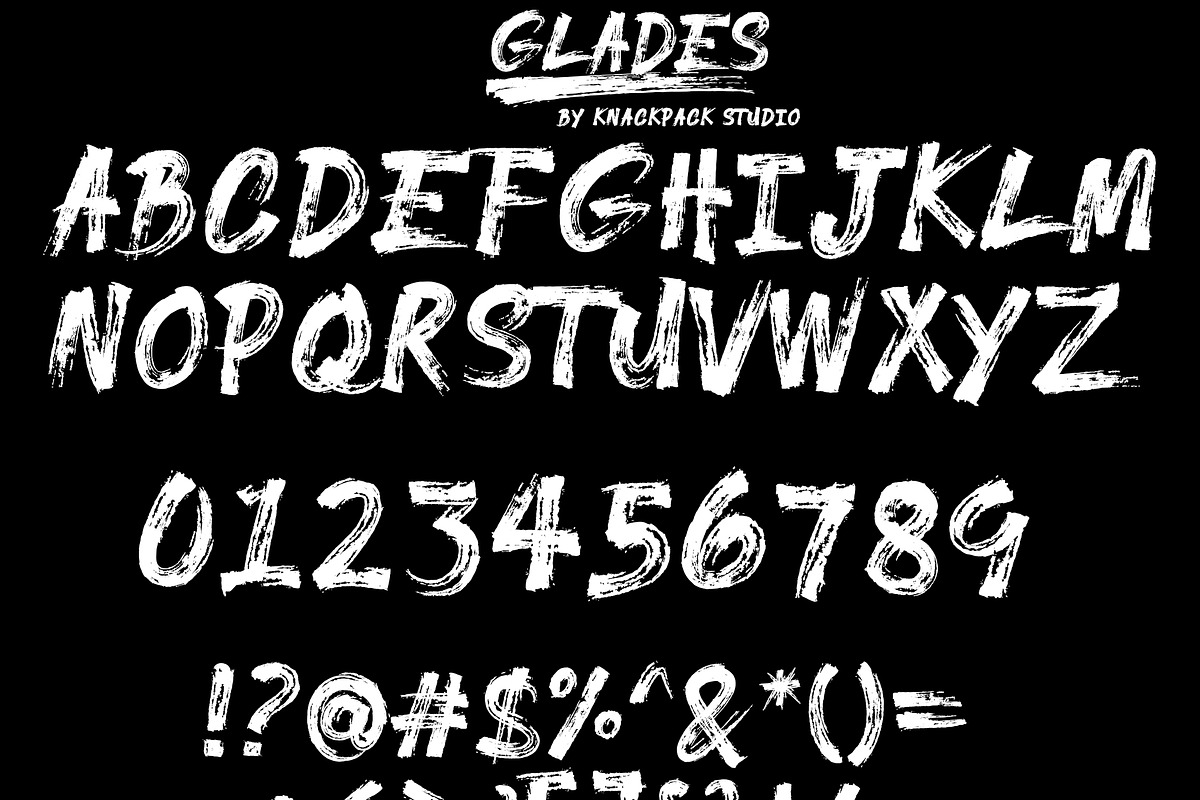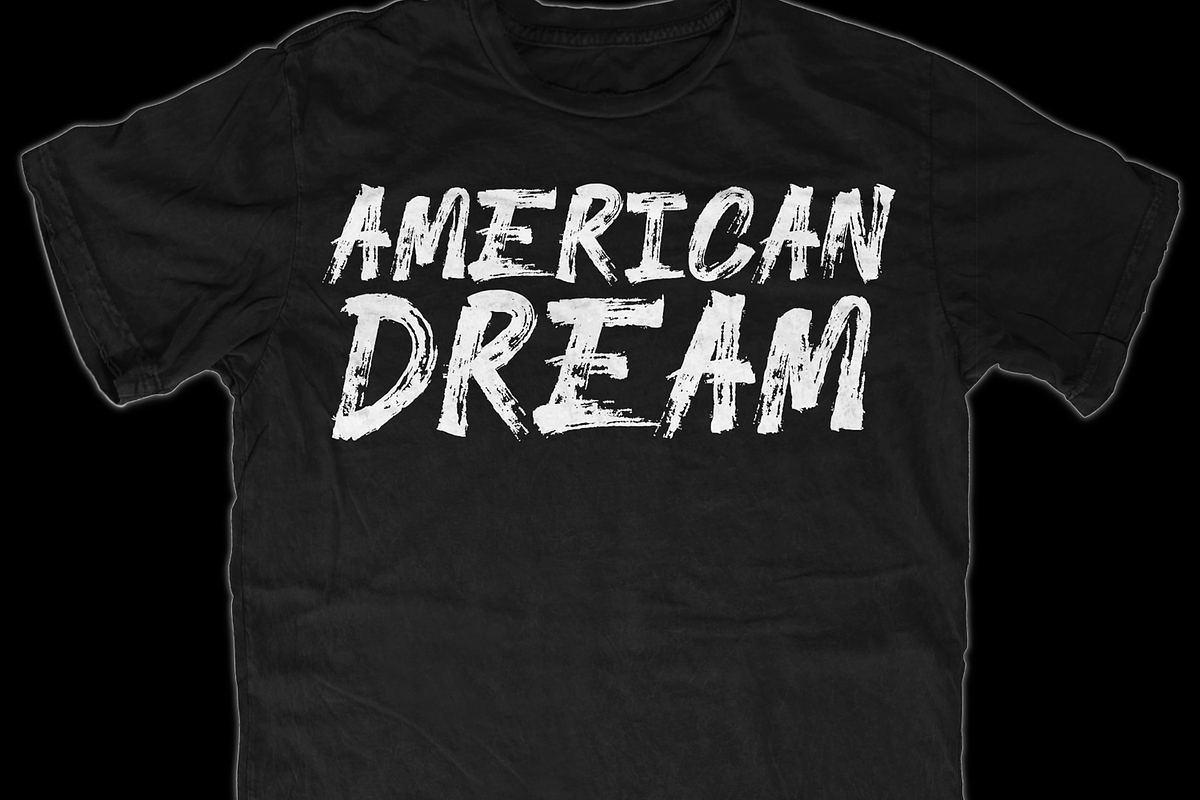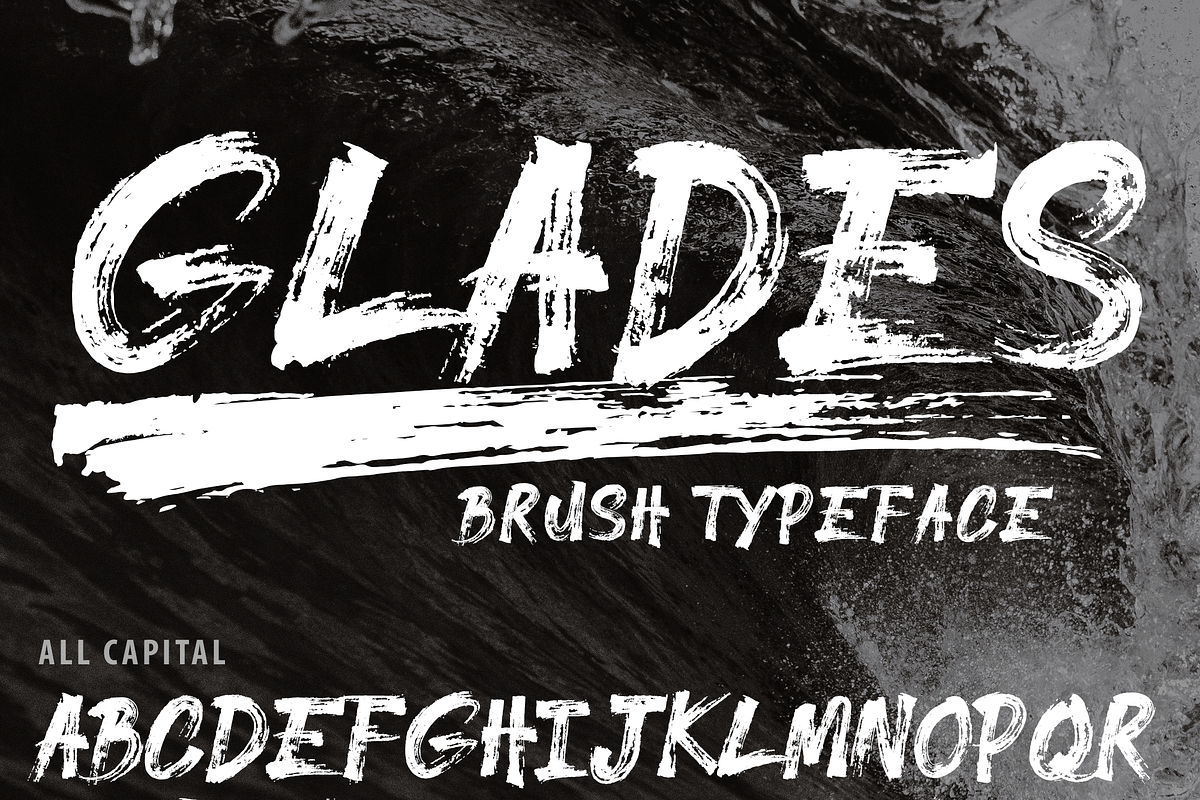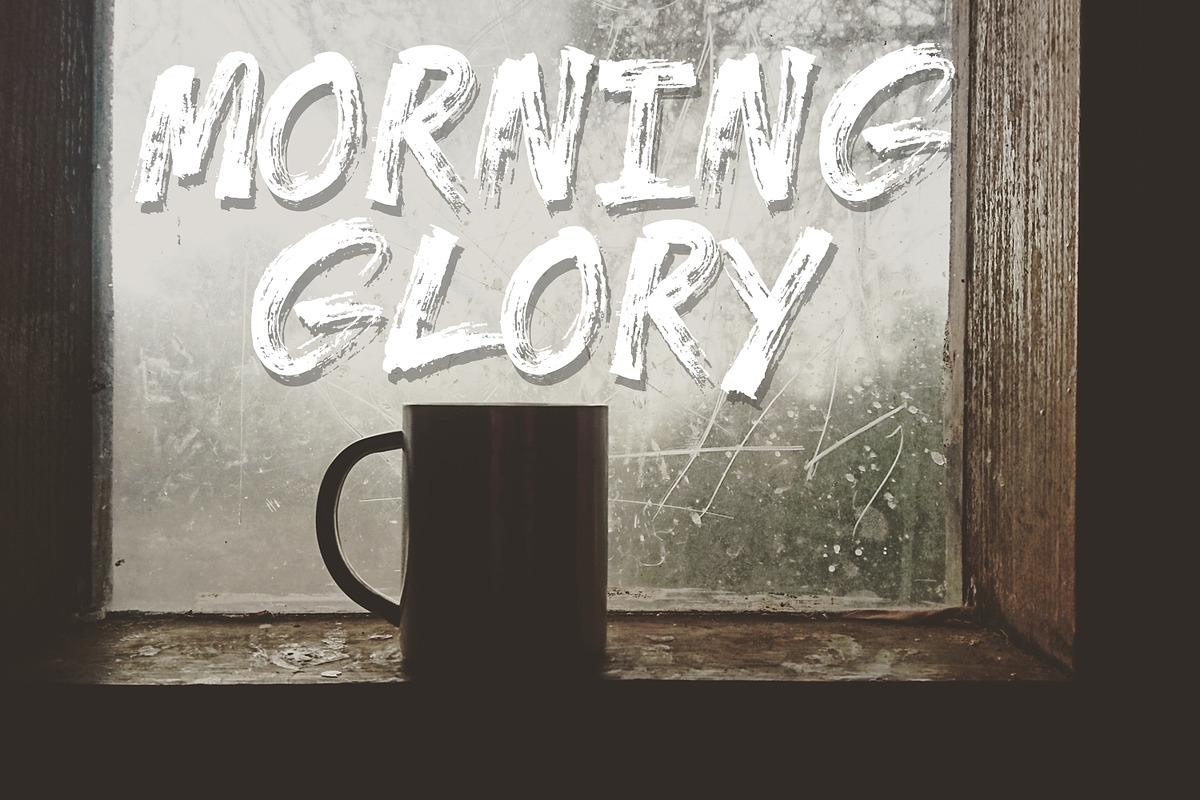
GLADES - Brush Typeface
GLADES Brush Typeface
ALL Capital Special Bold Brush font.
GLADES - Brush Typeface by CCONCEPTLAB fits naturally into Branding, posters, packaging, typography.